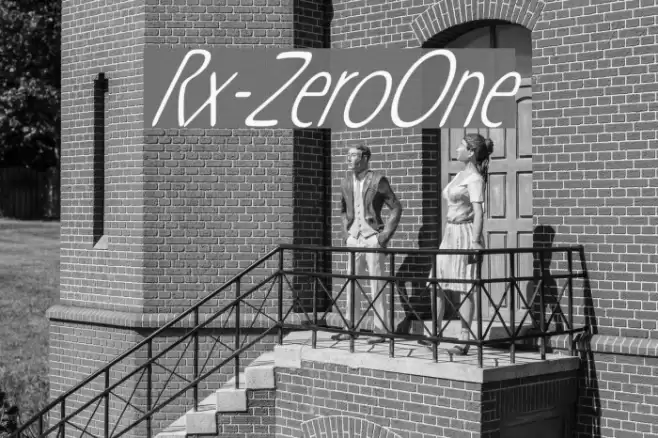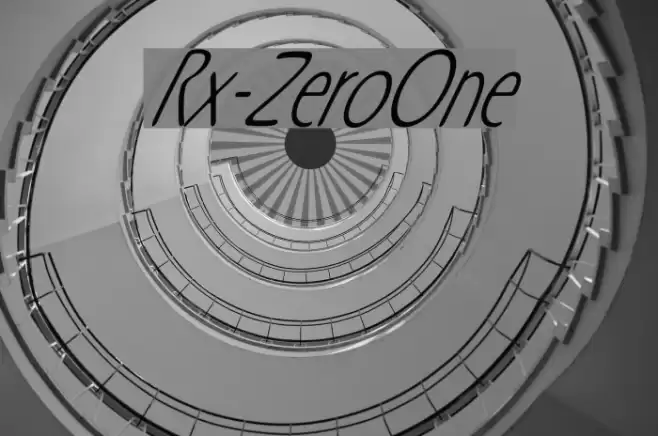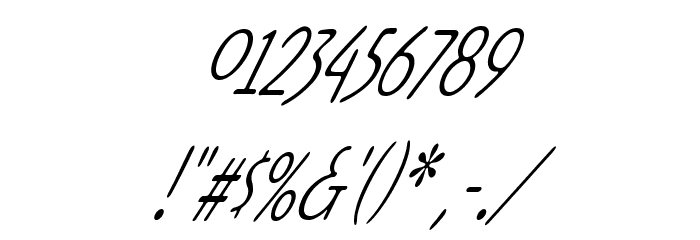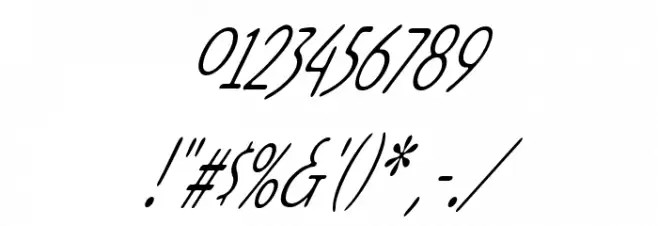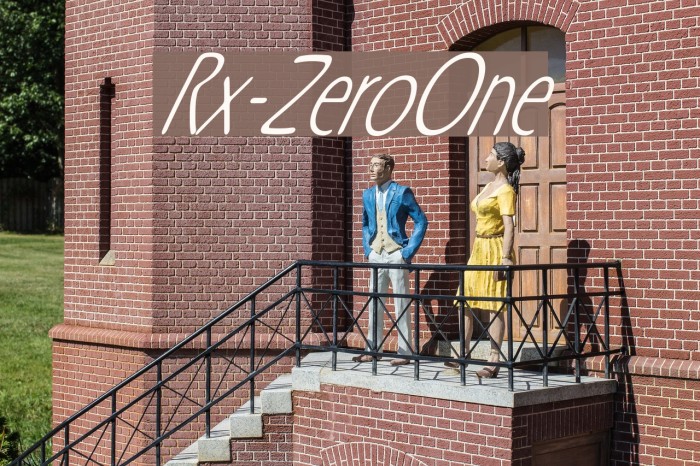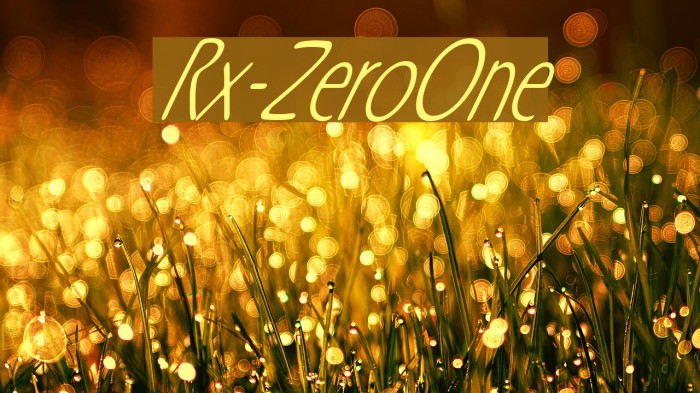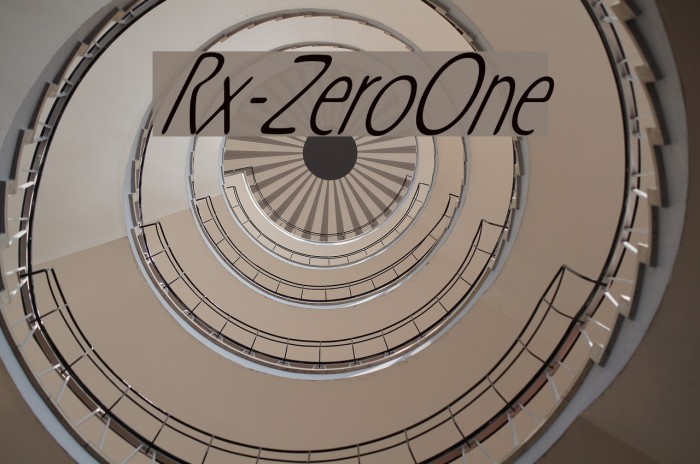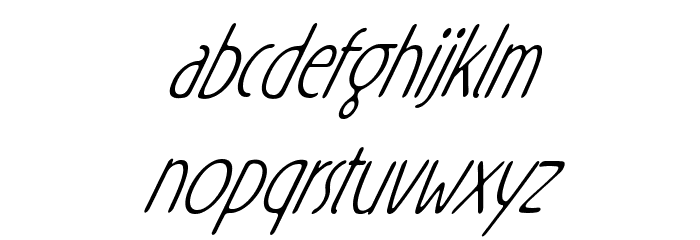
Rx-ZeroOne
This font features a sleek and modern script style with a slight slant, giving it a dynamic and fluid appearance. The characters are elegantly elongated, with smooth curves and sharp edges that create a sense of movement and sophistication. The uppercase letters are distinct and bold, while the lowercase letters maintain a consistent flow, enhancing readability. The numerals are well-proportioned, matching the overall aesthetic of the alphabet. Special characters are crafted with the same attention to detail, ensuring a cohesive look across all glyphs. This font's unique style makes it suitable for a variety of creative projects.
A modern, sleek script font with elongated, dynamic characters.
- Proposed Projects: Ideal for branding, invitations, posters, and digital media where a modern and elegant touch is desired.
- Category: Script
- Use Case: Logos, Headlines, Invitations